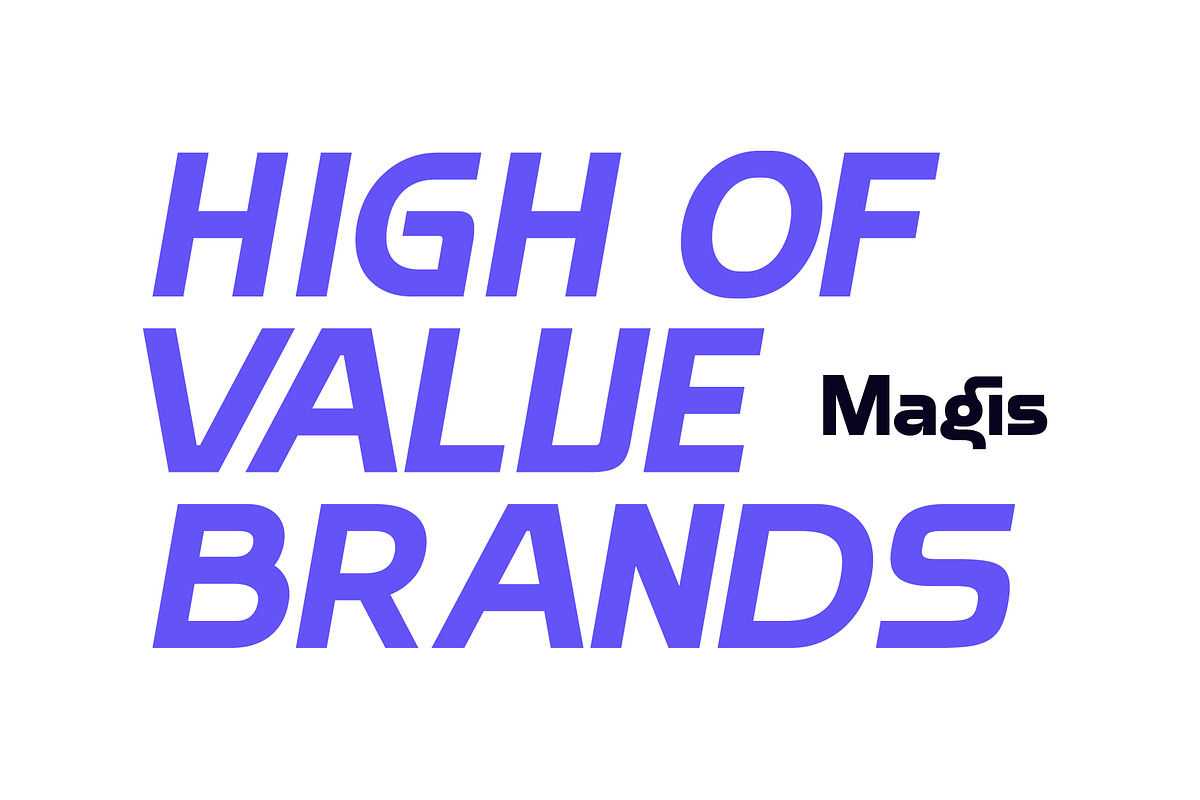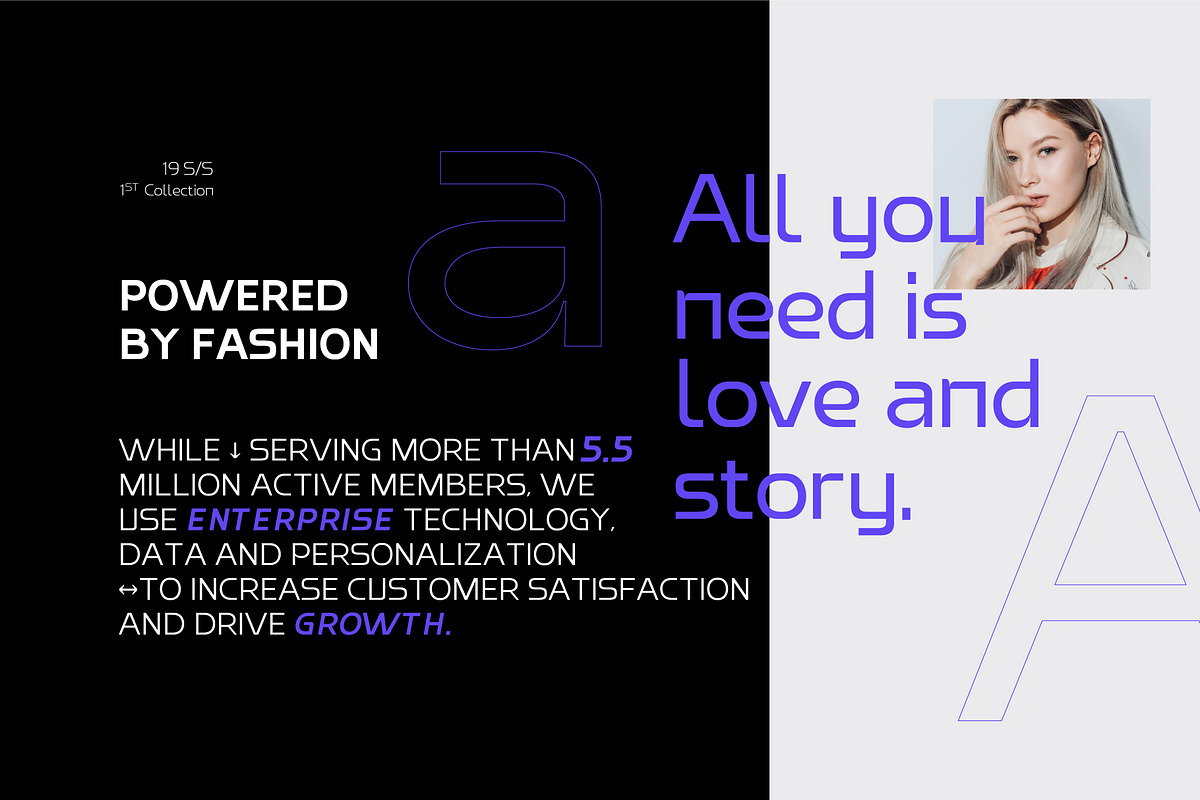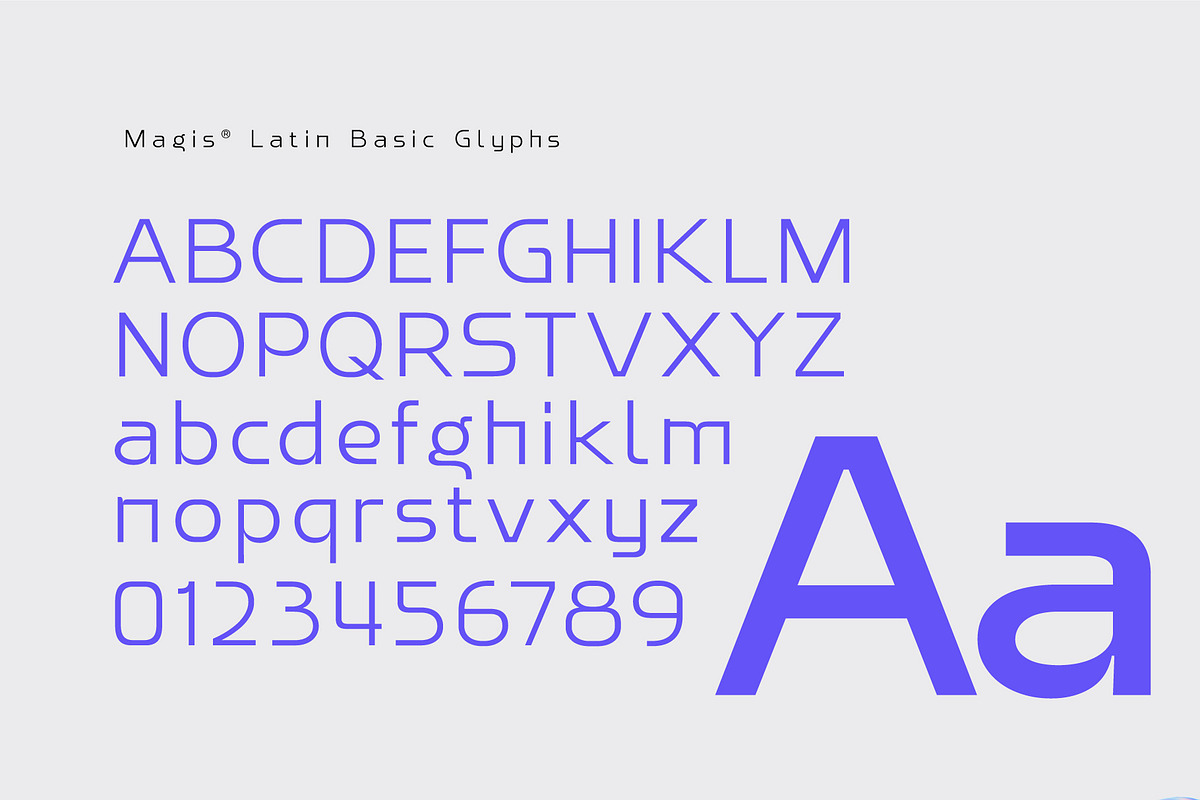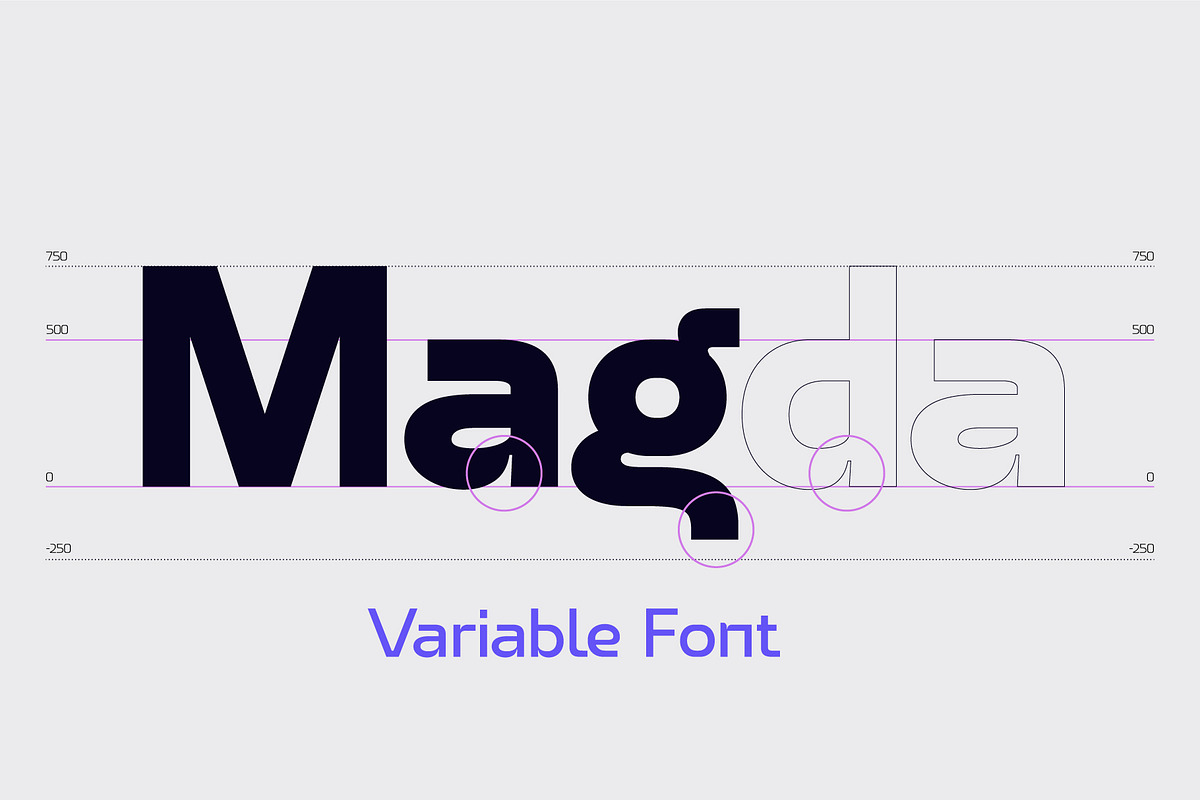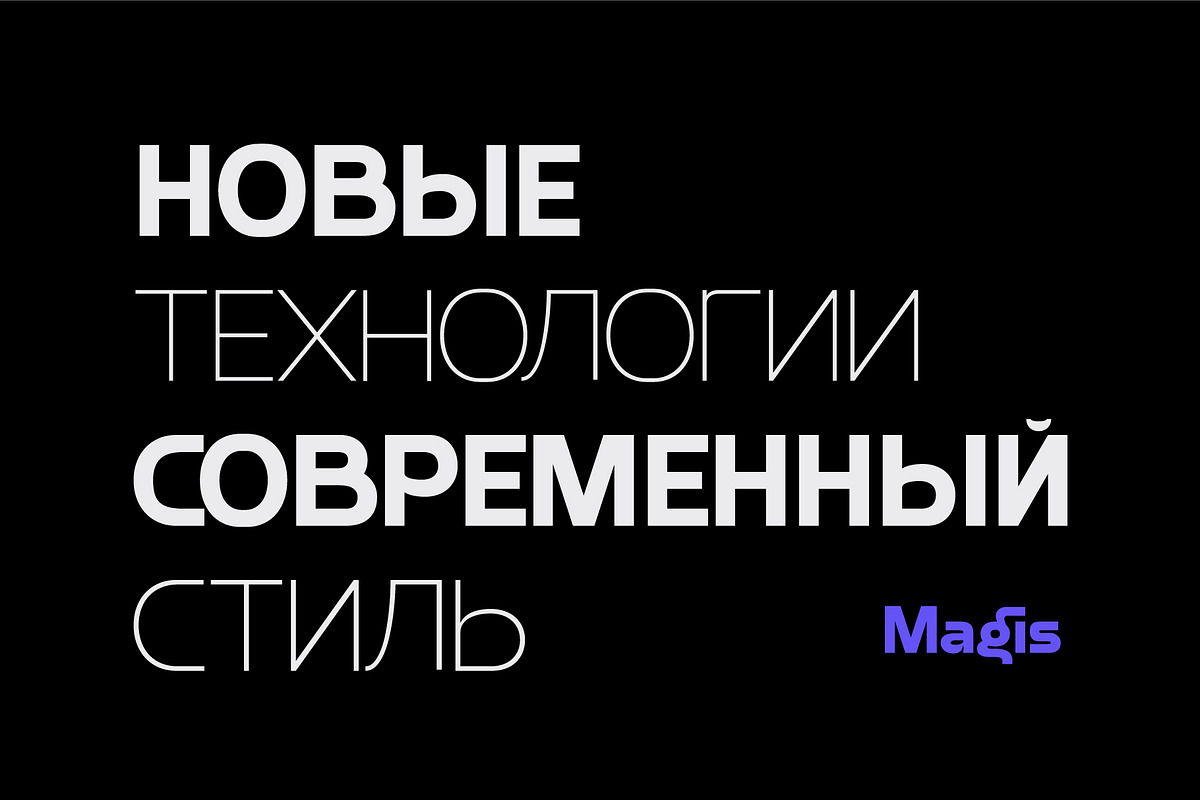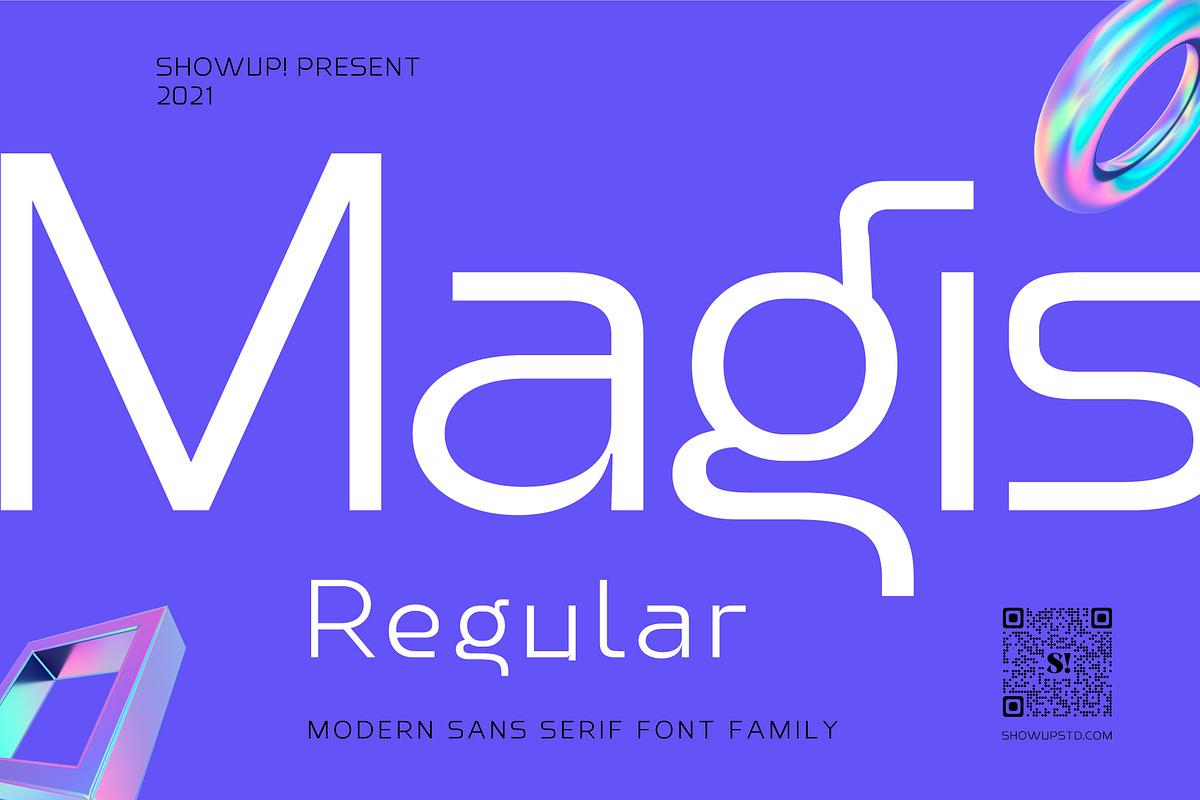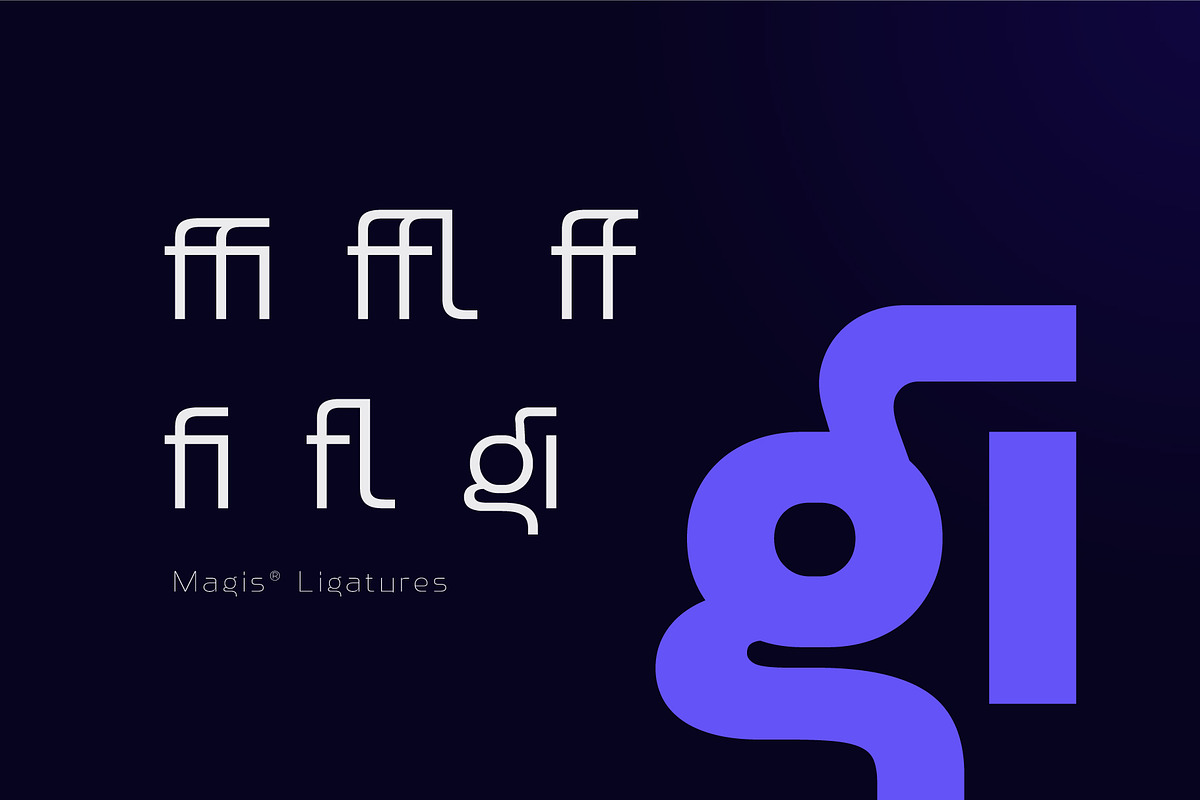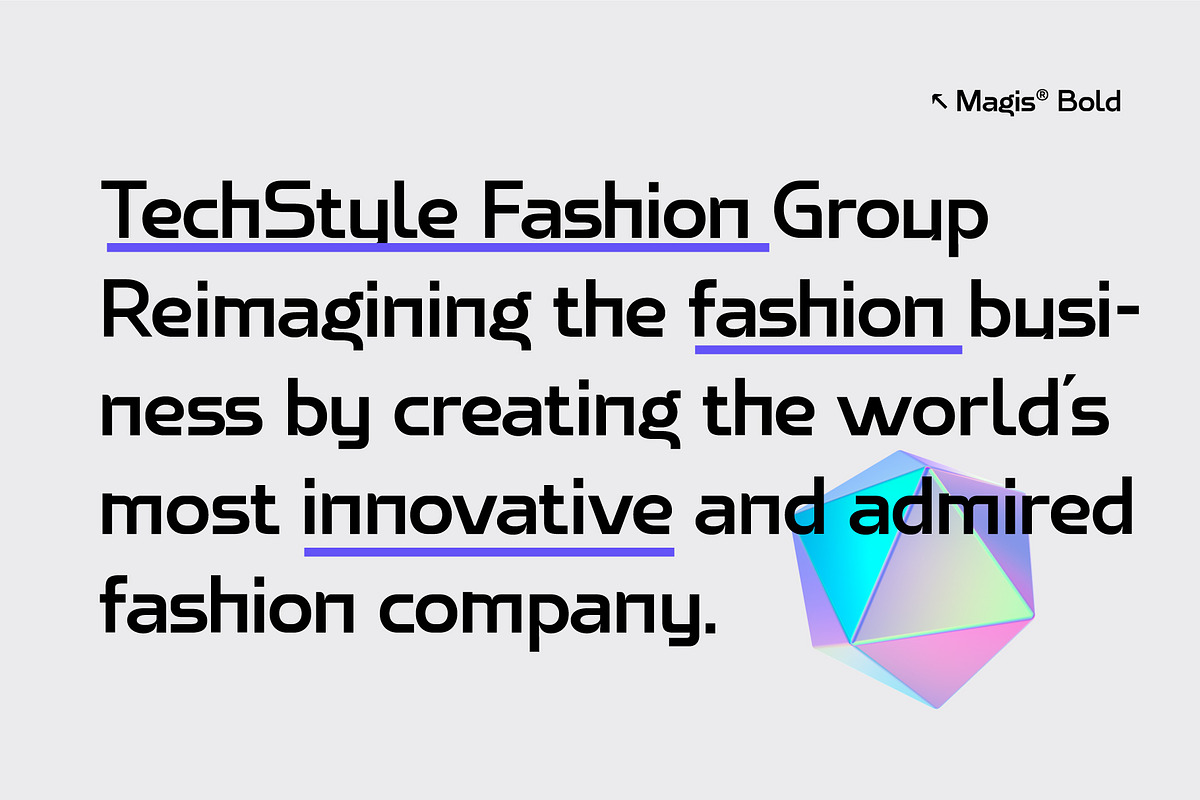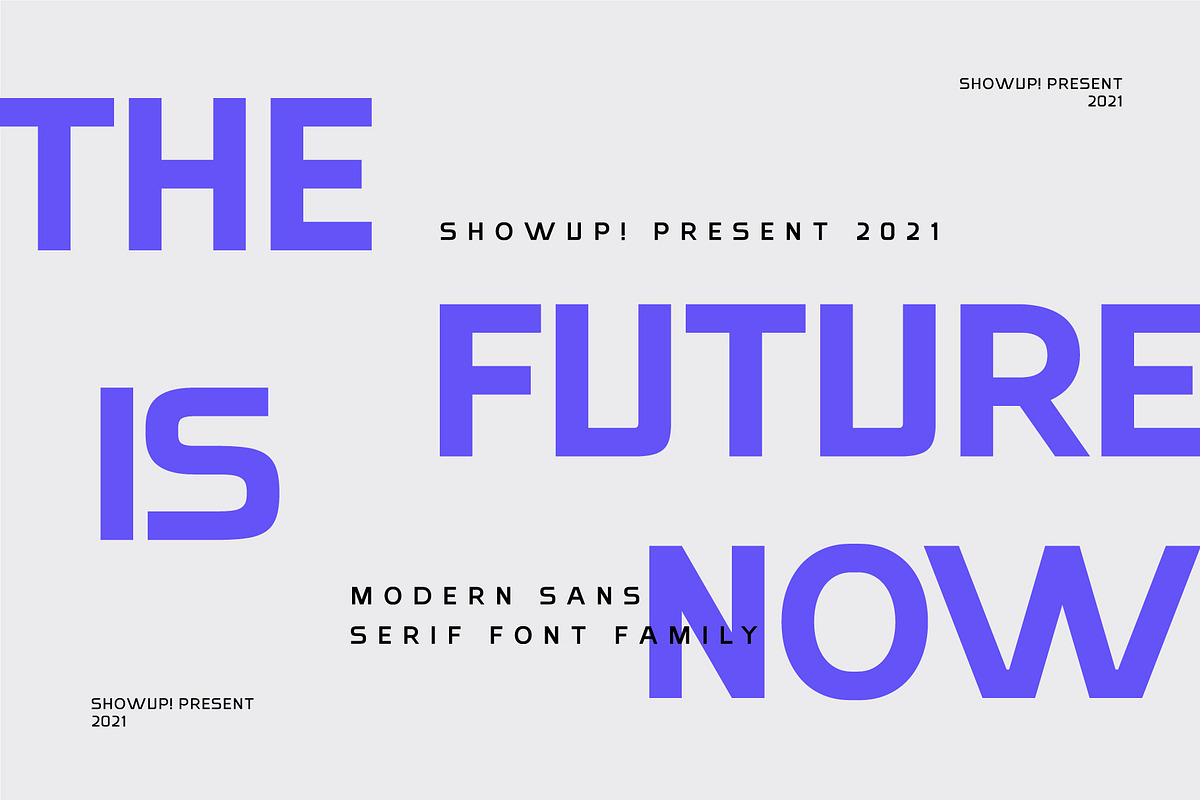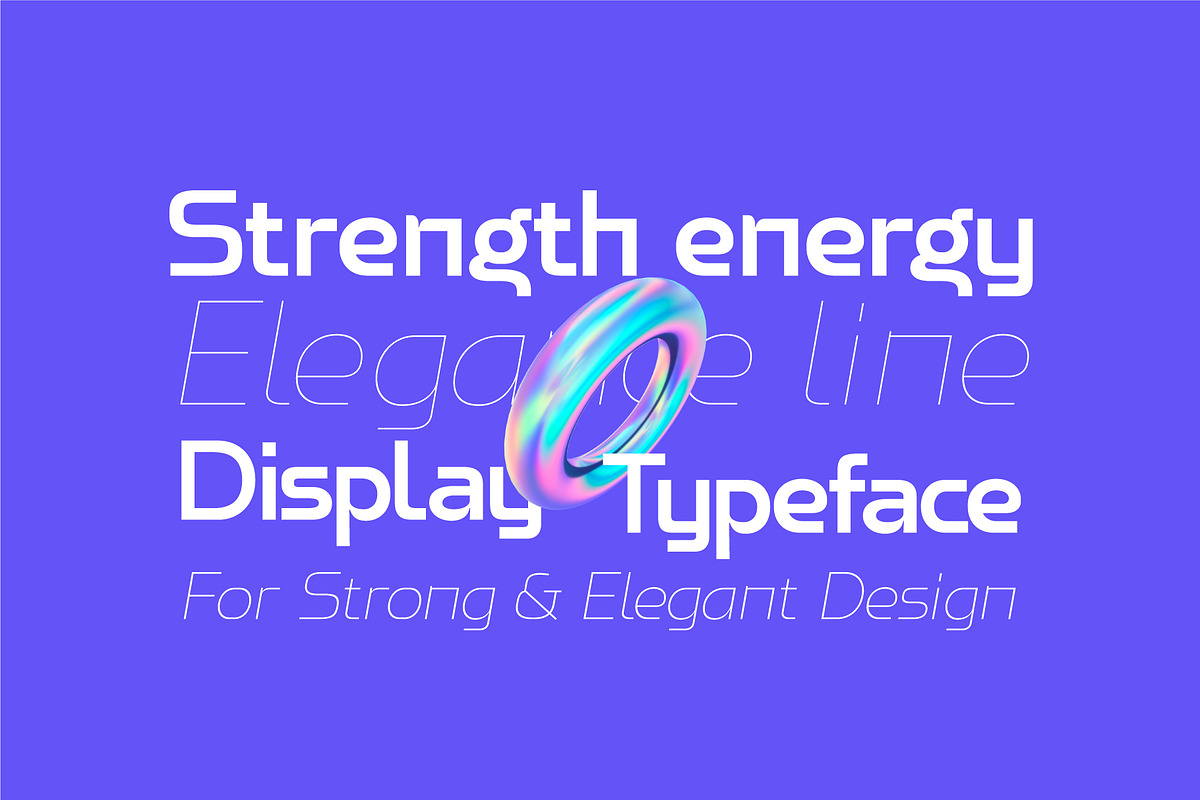
Magis Regular - Modern Sans Serif
Magis – Modern Geometric Sans Serif
Introducing Magis, a clean and contemporary geometric sans serif designed for modern brands, technology, and digital experiences. With balanced proportions, minimalist construction, and excellent readability, Magis is built to perform beautifully across both display and body text.
Available as a complete font family with multiple weights, Magis gives designers the flexibility to create consistent visual systems—from bold branding to refined editorial layouts.
Whether you're designing a startup identity, mobile app, website, presentation, or premium packaging, Magis delivers a timeless modern aesthetic with outstanding versatility.
Complete Font Family
Clean Geometric Sans Serif
Multiple Weights
Standard Ligatures
Why Choose Magis?
Designed with precision and simplicity, Magis combines geometric balance with exceptional readability, making it the ideal choice for designers creating modern identities, digital products, and professional typography systems.